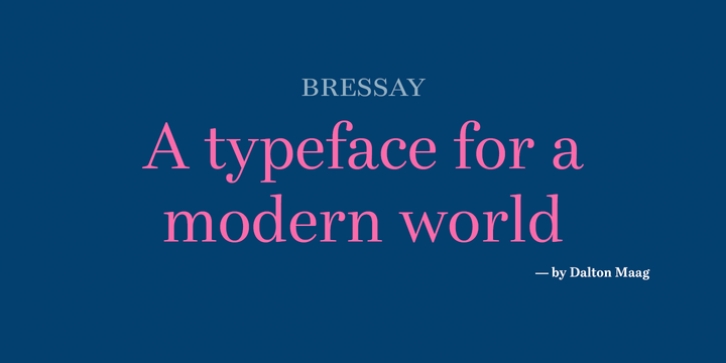
Bressay was designed by Stuart Brown and published by Dalton Maag. Bressay contains 6 styles and family package options.
Bressay is a Scotch Roman design that captures the elegance and sobriety of a style most popular in the 19th century, but which meets the demands of modern print and digital technologies.
Scotch Romans are characterized by their vertical stress, high contrast, ball terminals, and bracketed serifs. Bressay preserves all of these features, but adds a contemporary twist, giving relevance and functionality for a new generation of readers.
Bressay consists of text and display styles, all optimized for print and screen usage, making it ideal for a broad range of applications from newspaper and editorial typesetting, to luxury and fashion branding.